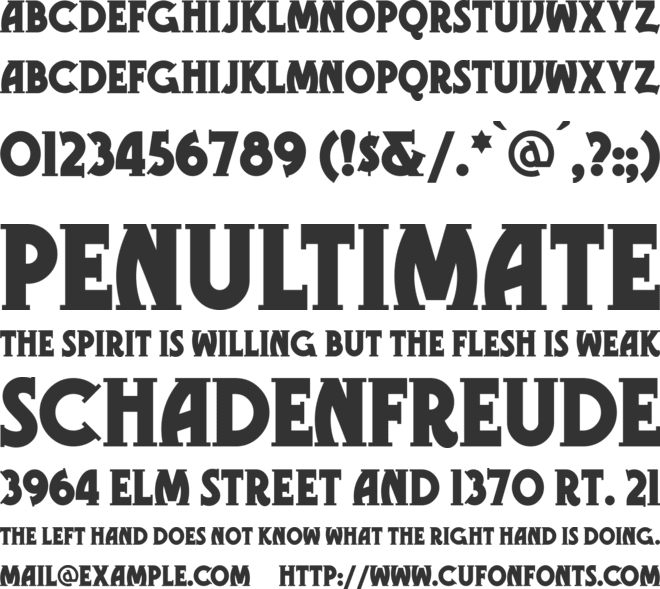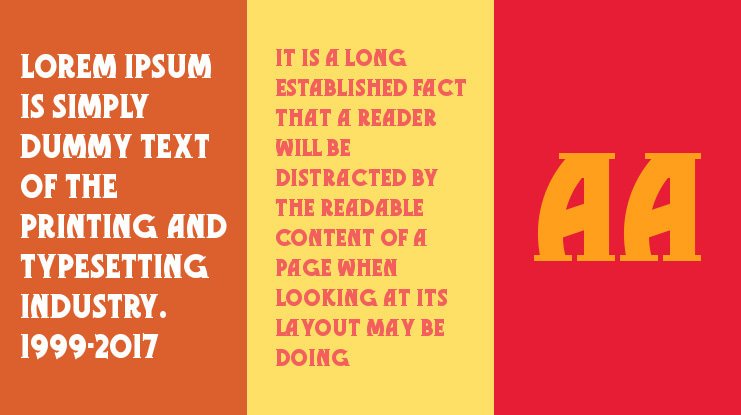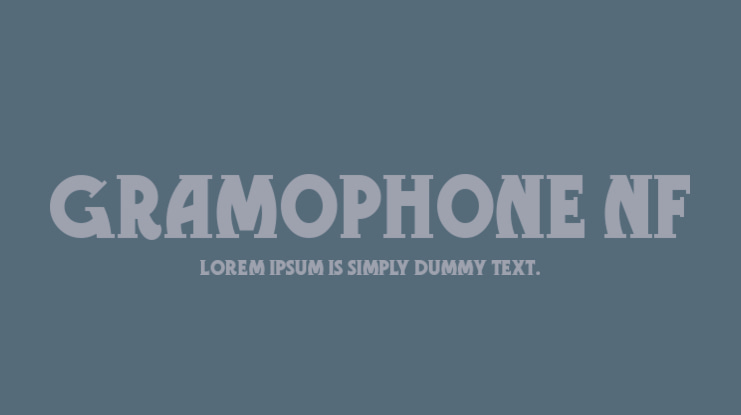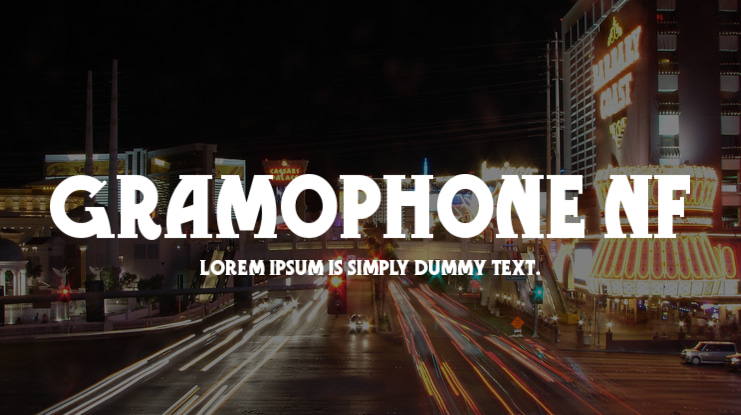
Gramophone NF Font
Nick Curtis
Achille Mauzan’s 1927 poster for the beverage Carpano provided the basis for this jolly little monocase typeface. Named, for no particular reason other than good looks, after the great-great grandaddy of the MP3 player.